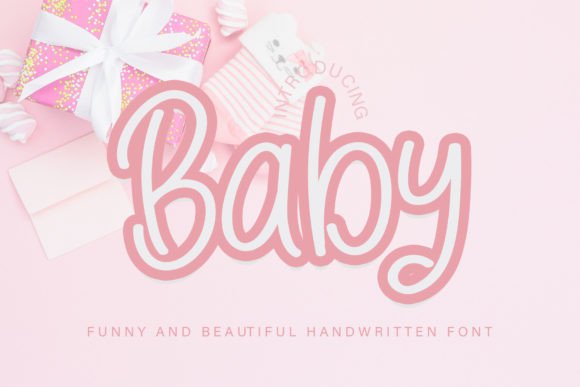
The Baby Font: A Modern Handwritten Delight for Creatives
I’ll never forget the time I was working on a project for a client’s baby shower invitations. I had a clear vision of what I wanted to create, but I just couldn’t find the right font to bring it all together. The designs looked either too formal or too childish, and I was on the verge of giving up. That’s when I stumbled upon the Baby font, and it instantly became my go-to choice. In this article, I’ll share my experience with this beautiful font, its features, and how you can make the most of it in your designs.
An Honest Review of Baby Font
What I Love About Baby Font ✨
- 💕 Modern and Fresh Look: Baby font has a cool, modern vibe that instantly elevates any design.
- ✅ Versatility: Whether you’re working on crafts, digital designs, presentations, or greeting cards, this font fits right in.
- 🌈 Emotional Connection: The handwritten style of Baby font creates a warm, personal feel that’s perfect for projects that require a touch of personality.
- 👍 Ease of Use: The font is easy to read and works well in various sizes, making it a practical choice for both print and digital projects.
While Baby font is incredibly versatile, there are a few things to keep in mind:
- ⚠️ Legibility at Small Sizes: Like many handwritten fonts, Baby font can get a bit tricky to read at very small sizes. It’s best used at larger sizes for optimal legibility.
- ⚠️ Overuse: Because of its beauty and versatility, there’s a risk of overusing Baby font in your projects. Make sure to balance it with other fonts to keep your design fresh.
The Story Behind Baby Font
Baby font was designed with the intention of creating a modern, yet personal and warm feel. The designer aimed to capture the essence of handwritten notes in a digital format, making it perfect for a wide range of creative projects. The font’s clean lines and gentle curves make it universally appealing, from DIY crafts to professional presentations.
Q: Is Baby font suitable for body text?
A: While Baby font is beautiful, it’s best used for headings or short paragraphs due to its decorative nature. For longer body text, a more straightforward font might be easier to read.
Q: Does Baby font support OpenType features?
A: Yes, Baby font comes with OpenType features, allowing for advanced typographic control, including stylistic alternates and glyphs.